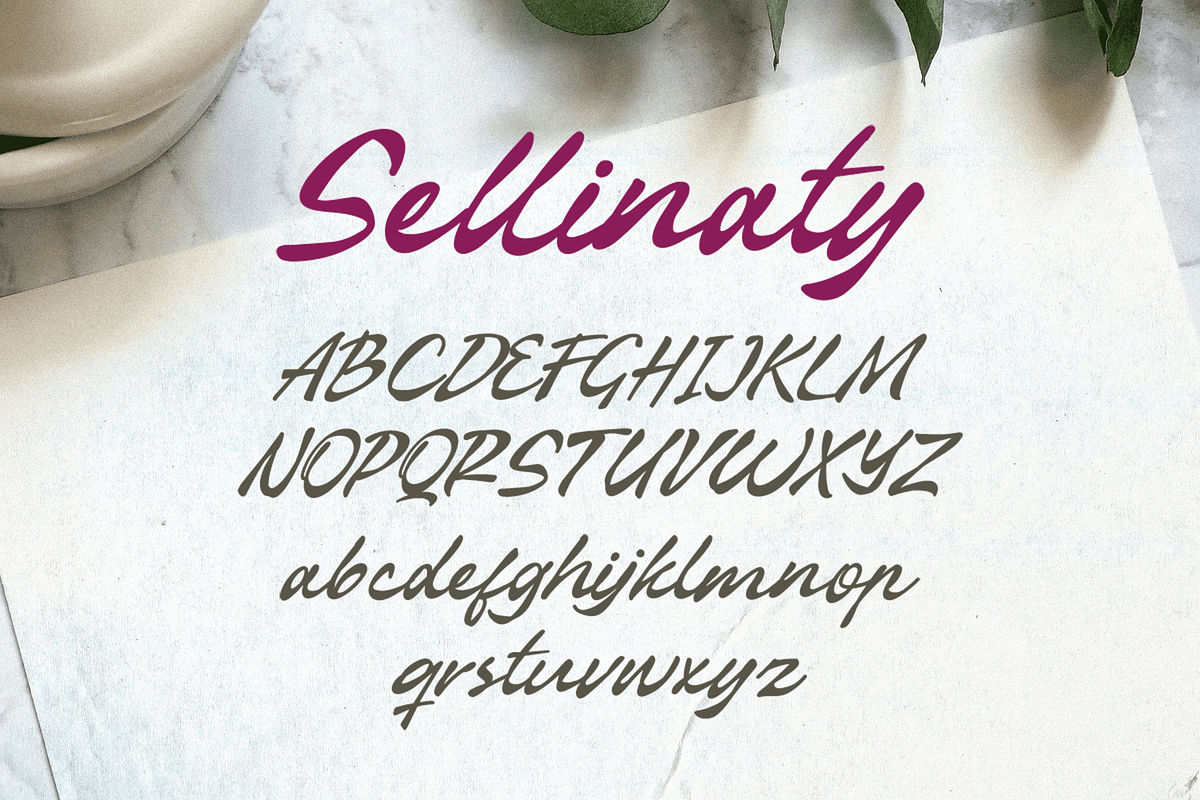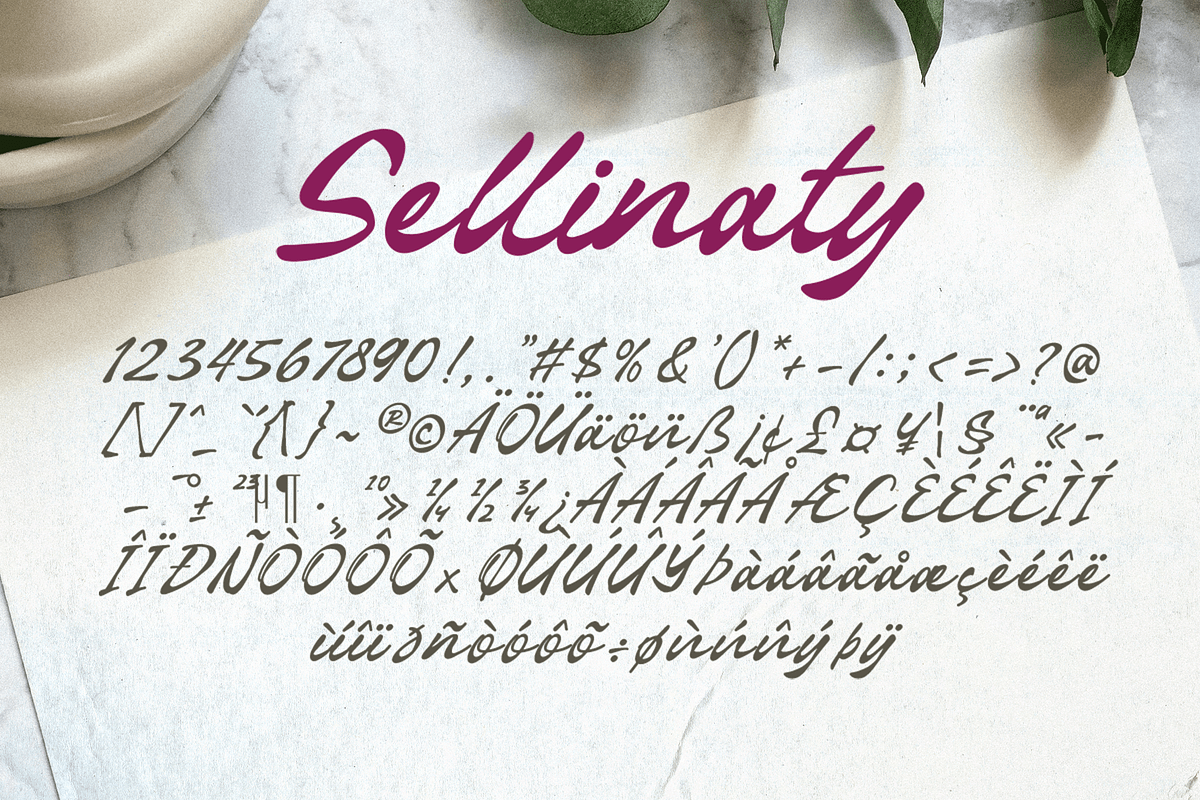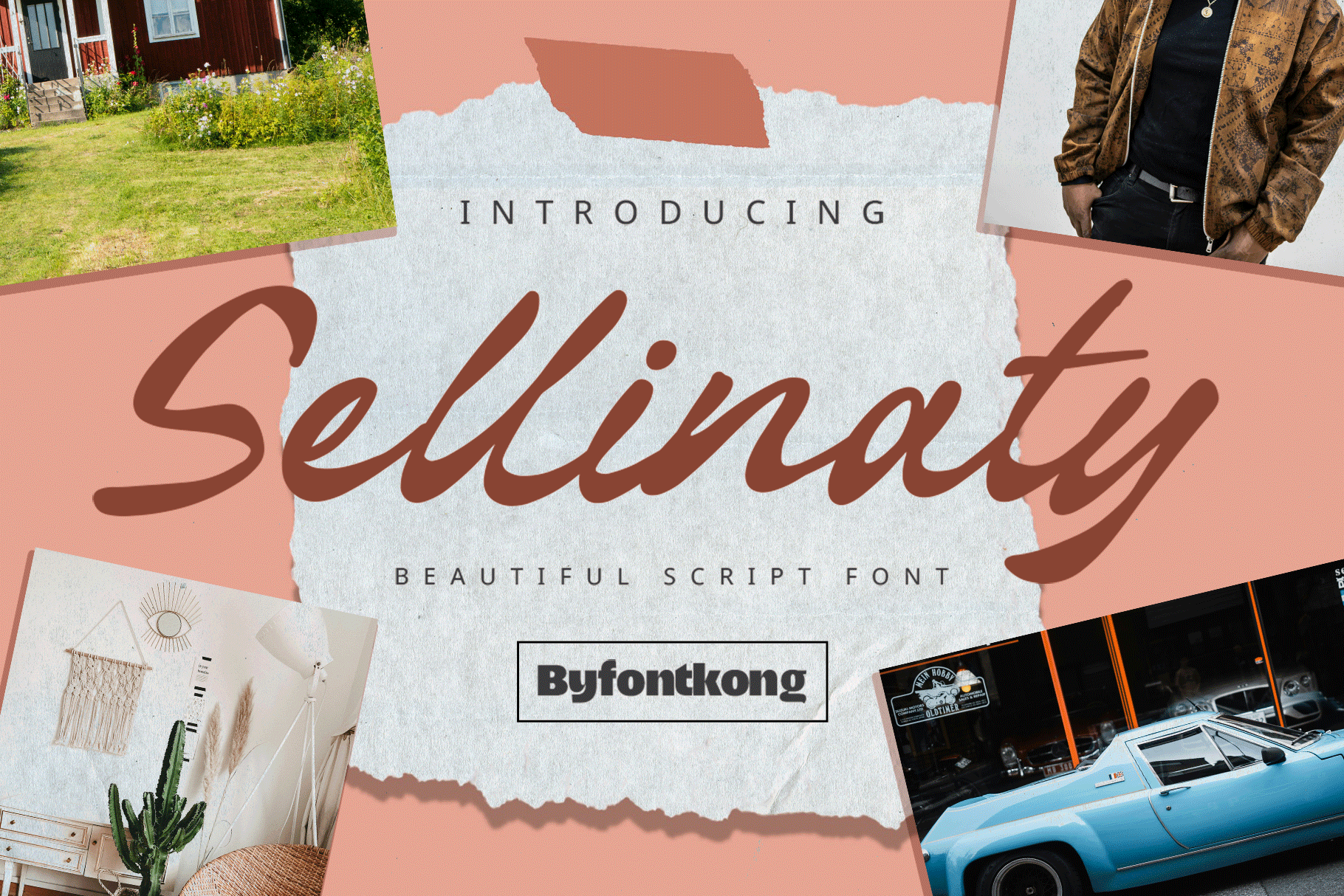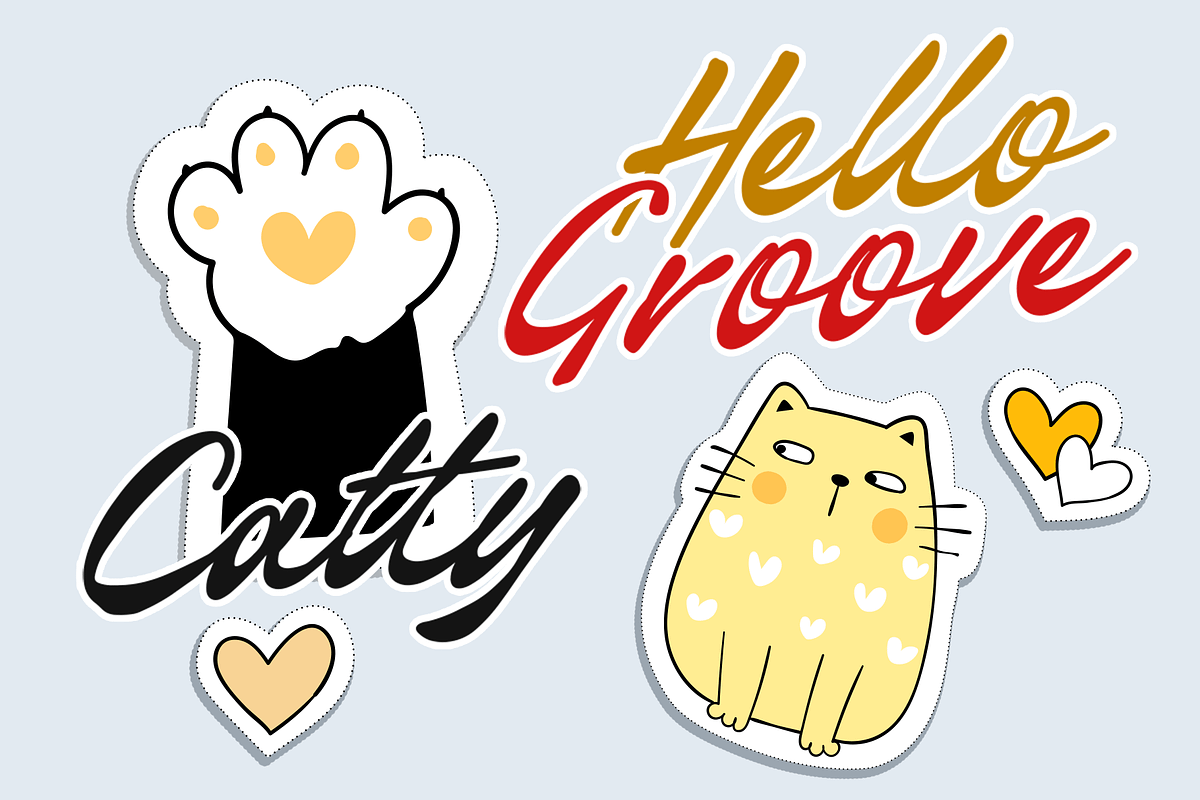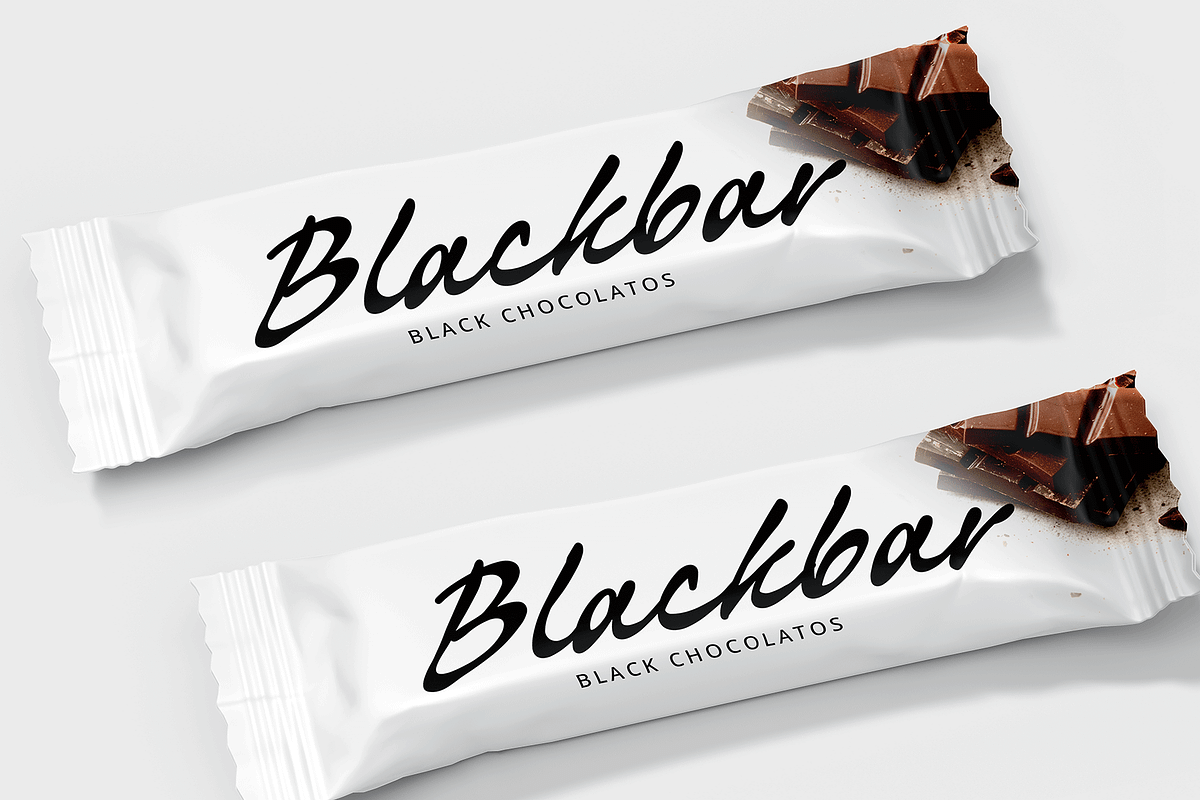
Sellinaty - Beautiful Script Font
Introducing Sellinaty, a beautiful script font that effortlessly blends sophistication with a touch of charm. With its flowing curves and delicate strokes, Sellinaty brings a graceful, handwritten quality to your designs, making it perfect for everything from weddings and invitations to branding and signage.
Designed with elegance in mind, Sellinaty exudes a sense of refinement while maintaining an approachable, human touch. Whether you're working on a logo, greeting card, personal branding, or any project that needs a warm, authentic feel, Sellinaty adds a unique, personal flair to your creative work.
The font includes a full set of uppercase and lowercase letters, numerals, punctuation, and multilingual support, giving you the flexibility you need for a wide range of applications. With its smooth, flowing letterforms, Sellinaty enhances your designs with a timeless, handwritten elegance.
Sellinaty is the ideal script font for adding a beautiful, refined touch to your projects.